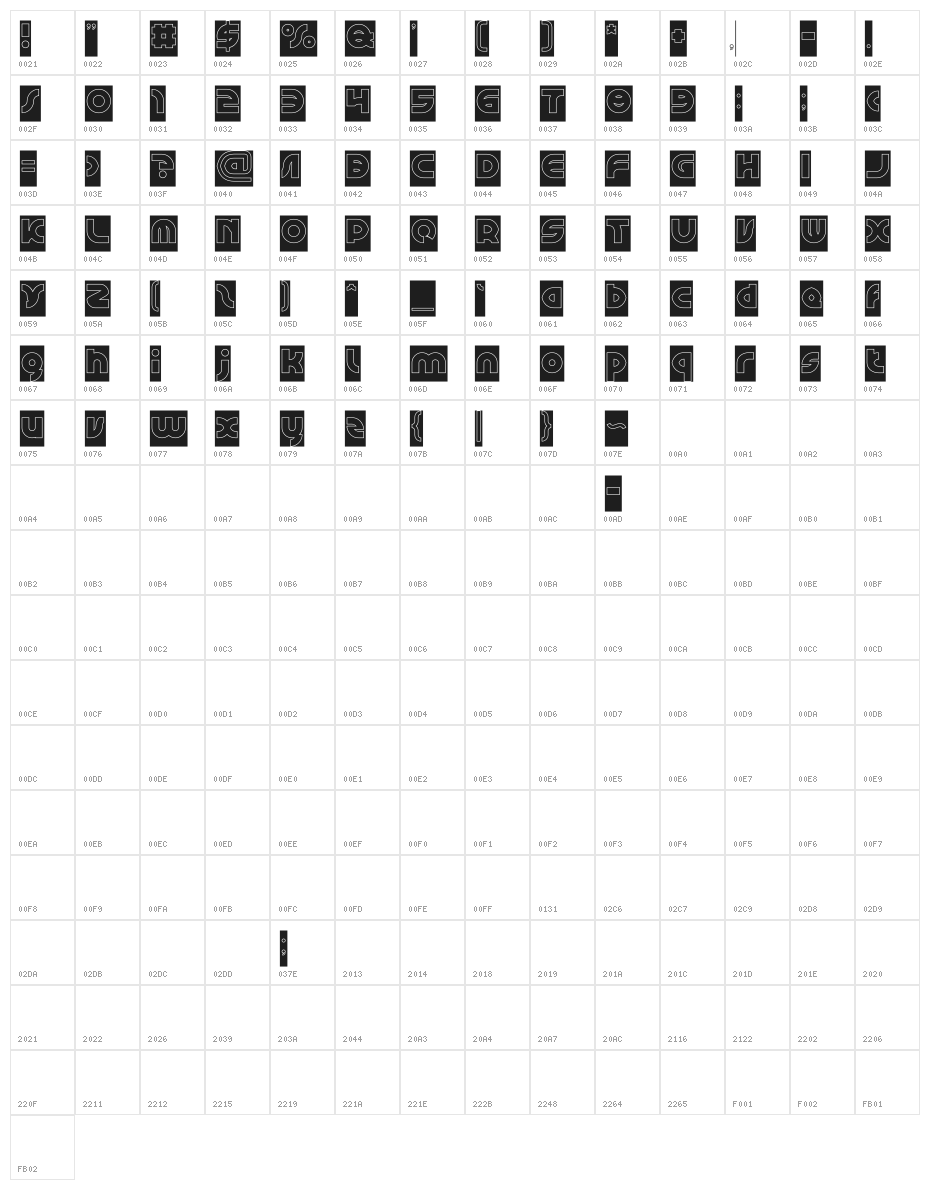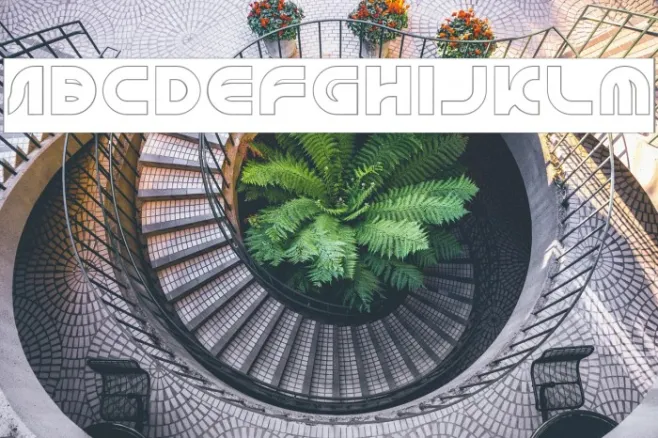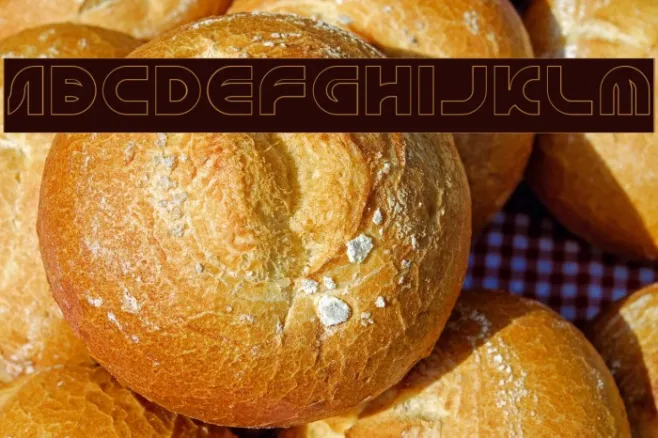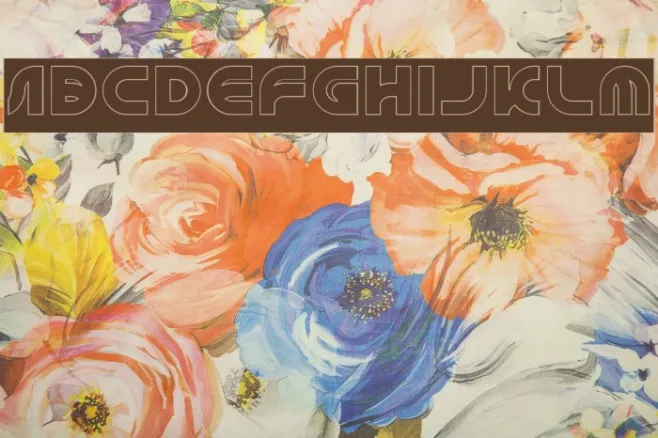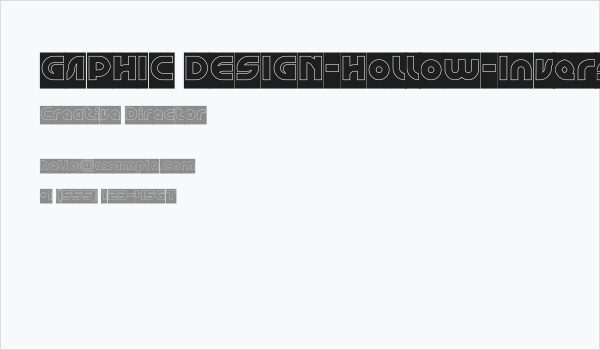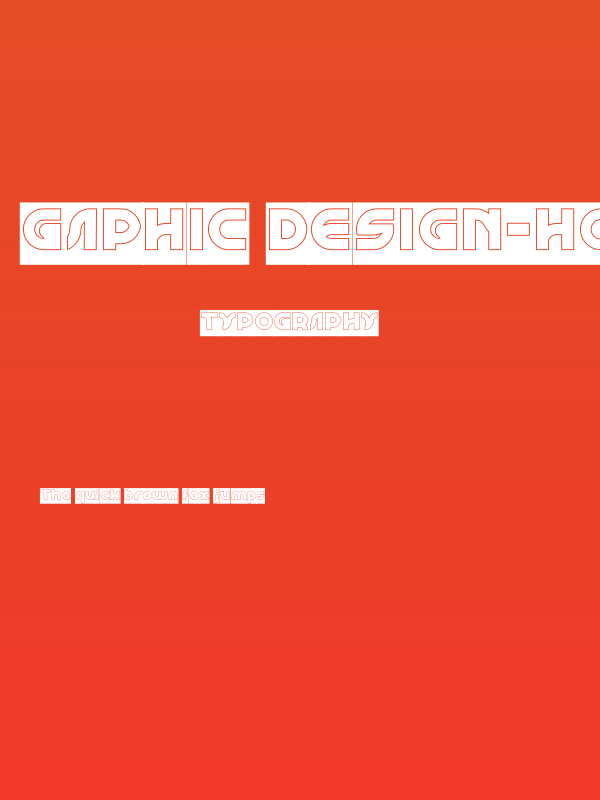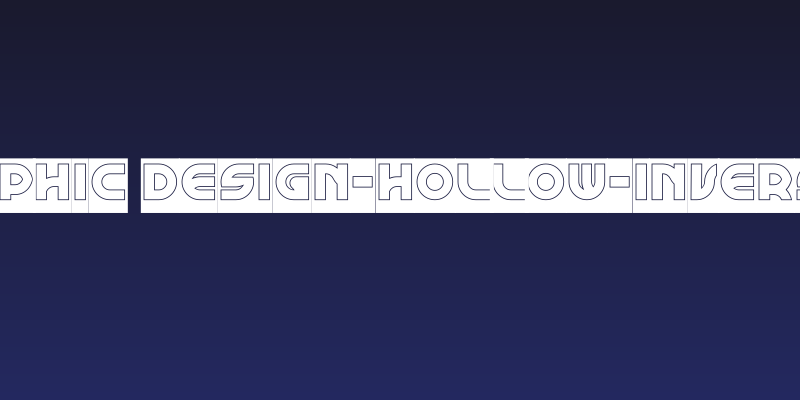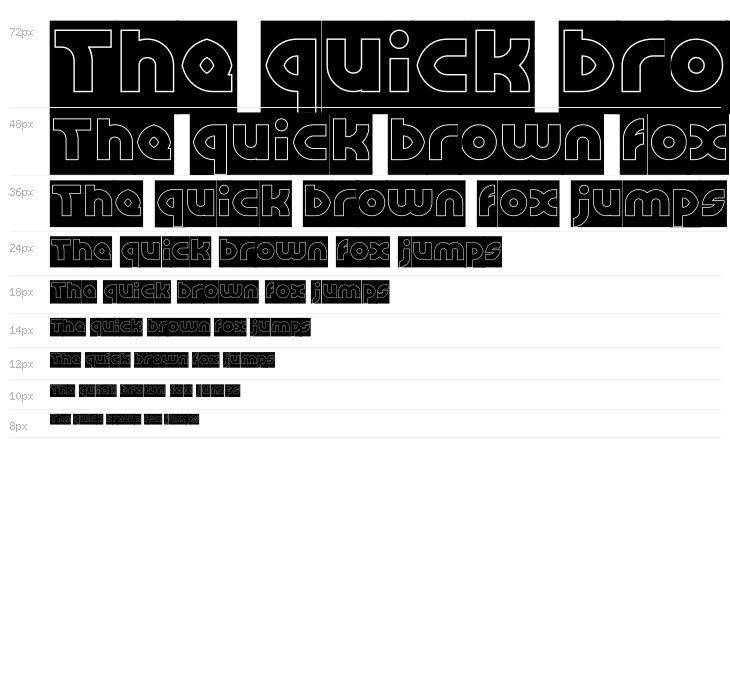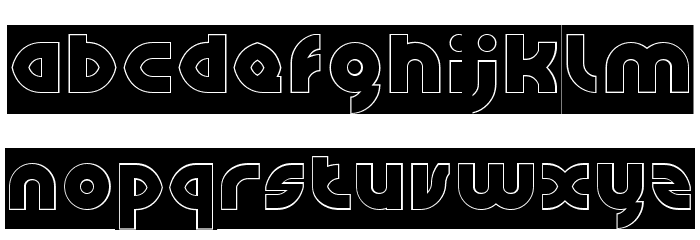
GAPHIC DESIGN-Hollow-Inverse Font
GAPHIC DESIGN-Hollow-Inverse Description
This font features a hollow, inverse design with a futuristic and geometric aesthetic. The characters are outlined with a bold, consistent stroke, creating a striking contrast against the background. The uppercase and lowercase letters maintain a uniform width, giving the font a cohesive look. The numbers and special characters follow the same design principles, ensuring consistency across all elements. The font's unique style makes it ideal for projects that require a modern and eye-catching appearance.
| Proposed Projects | Ideal for sci-fi themed designs, modern branding, posters, and digital artwork. |